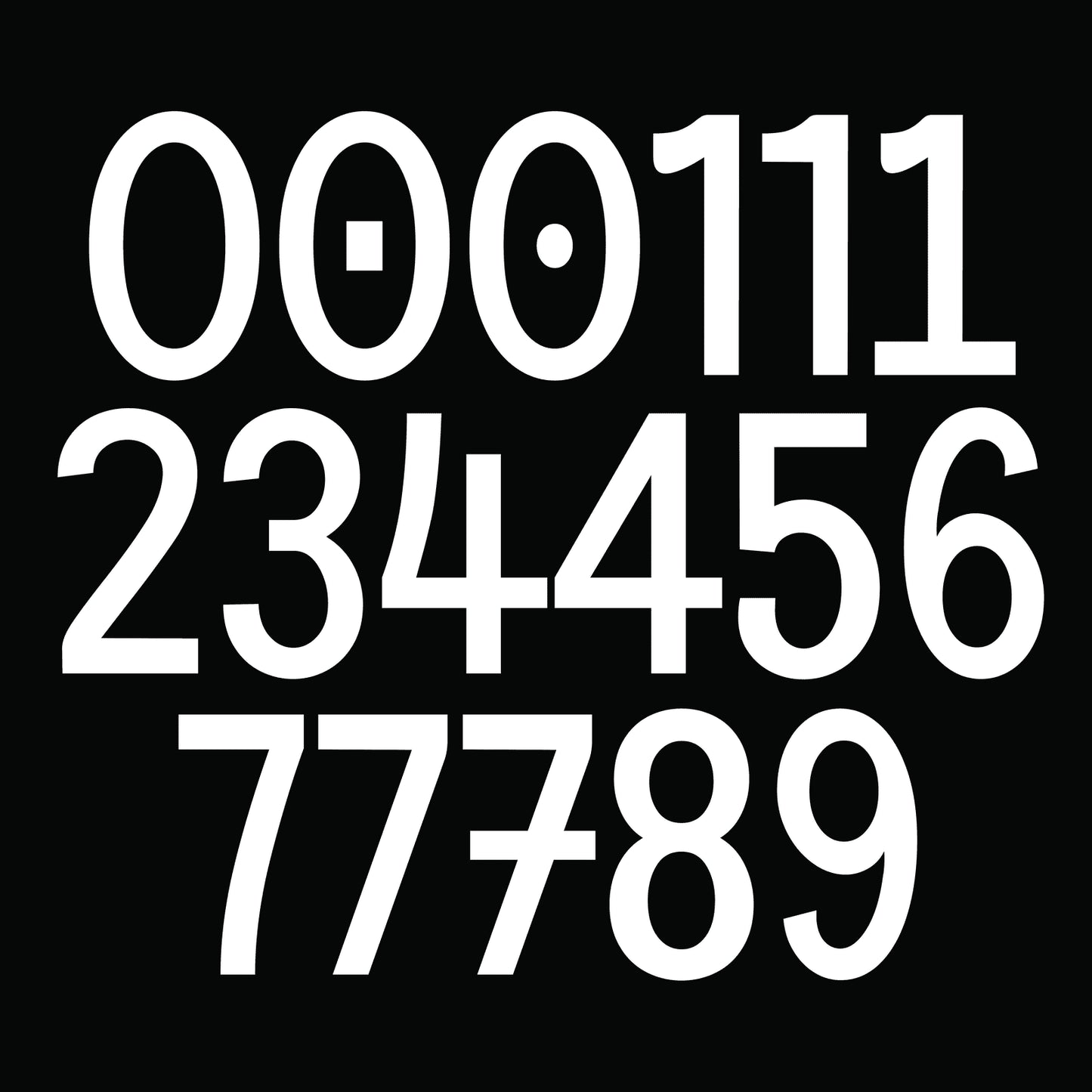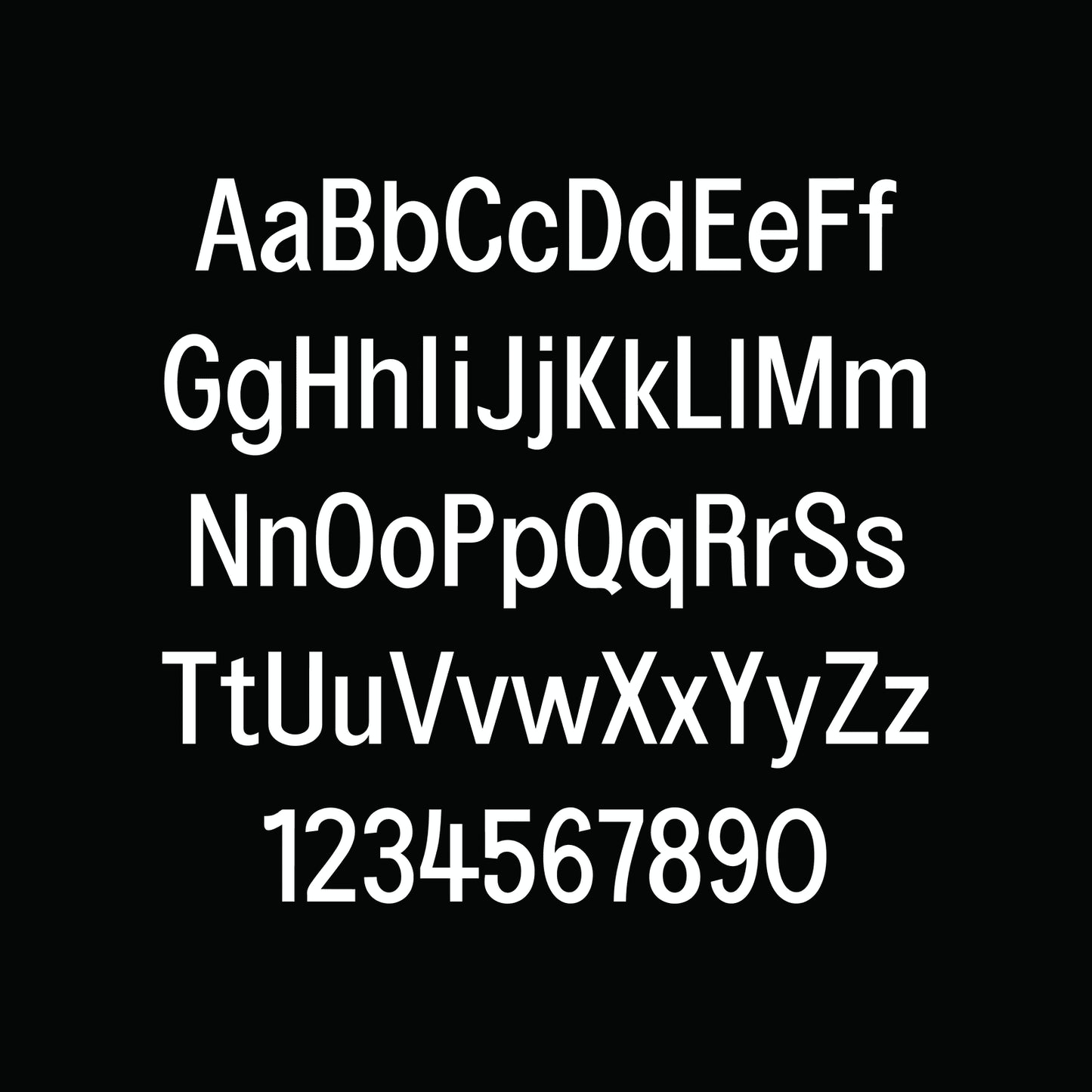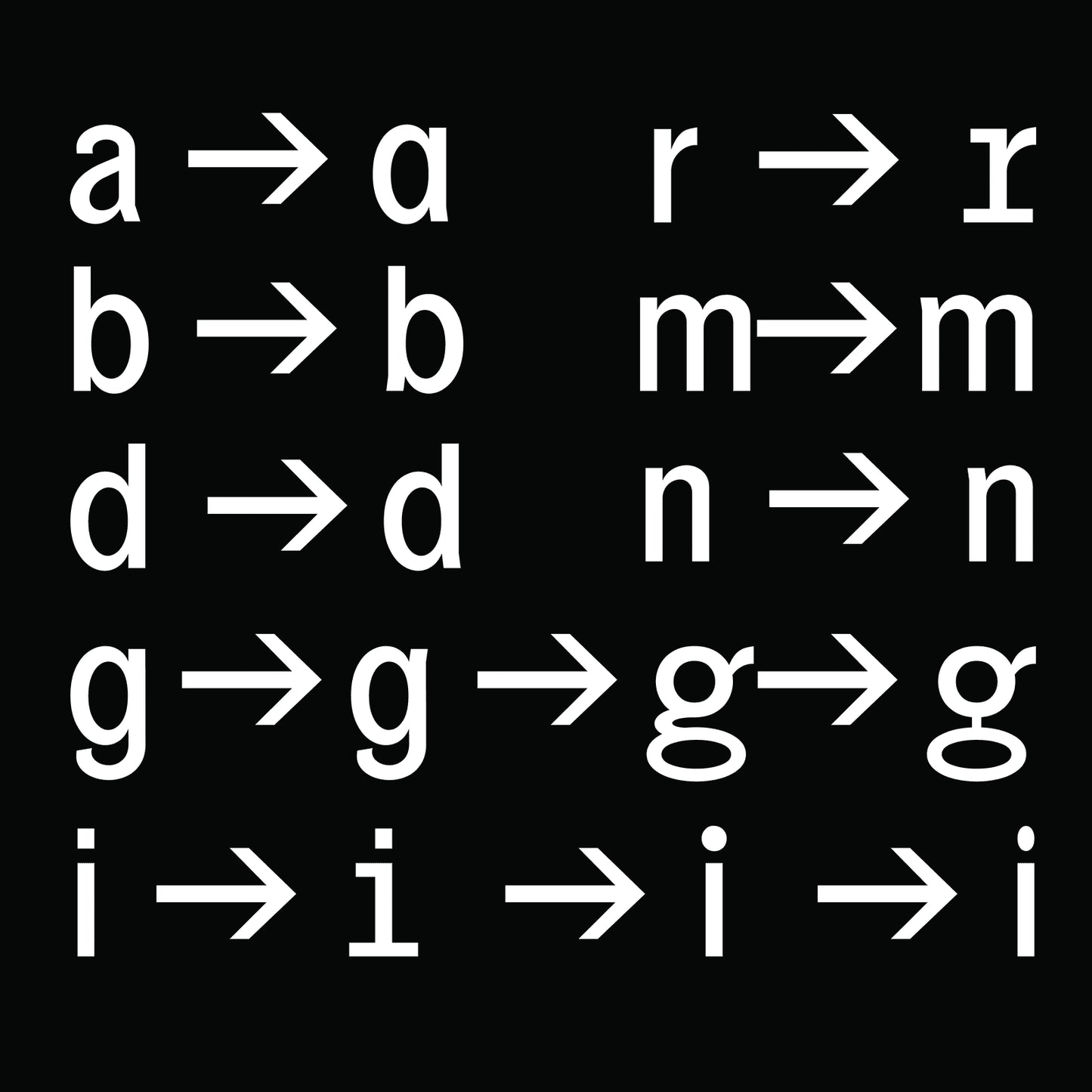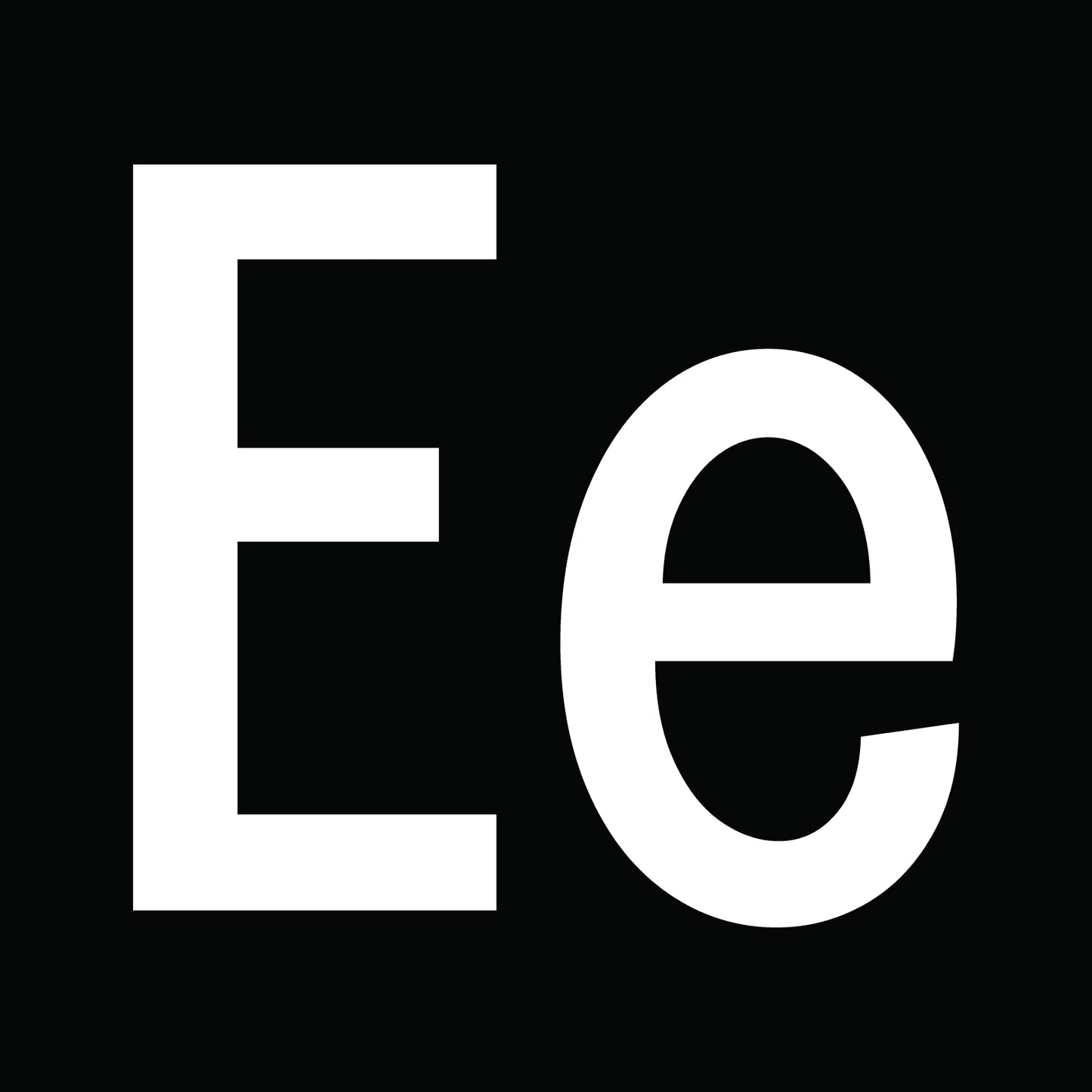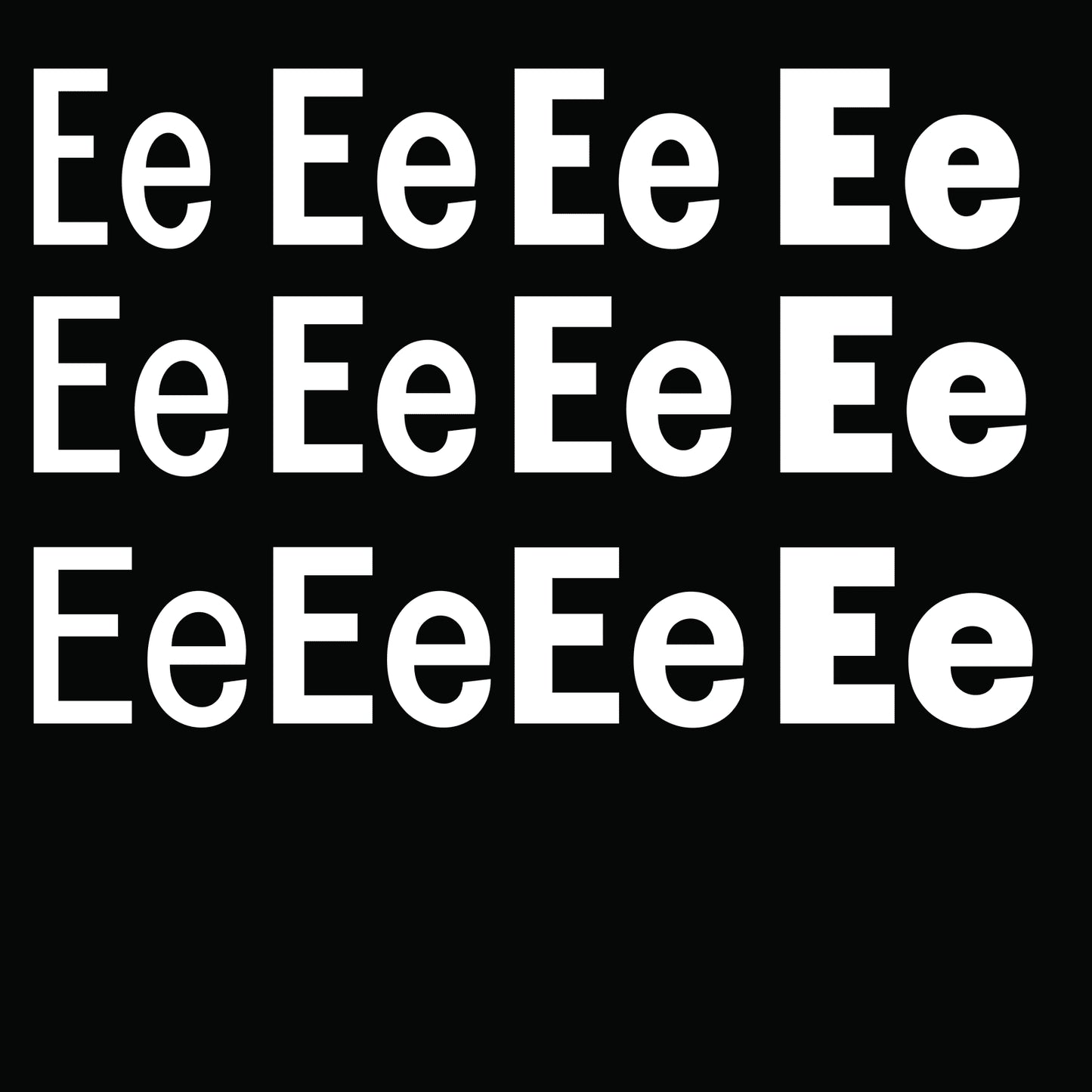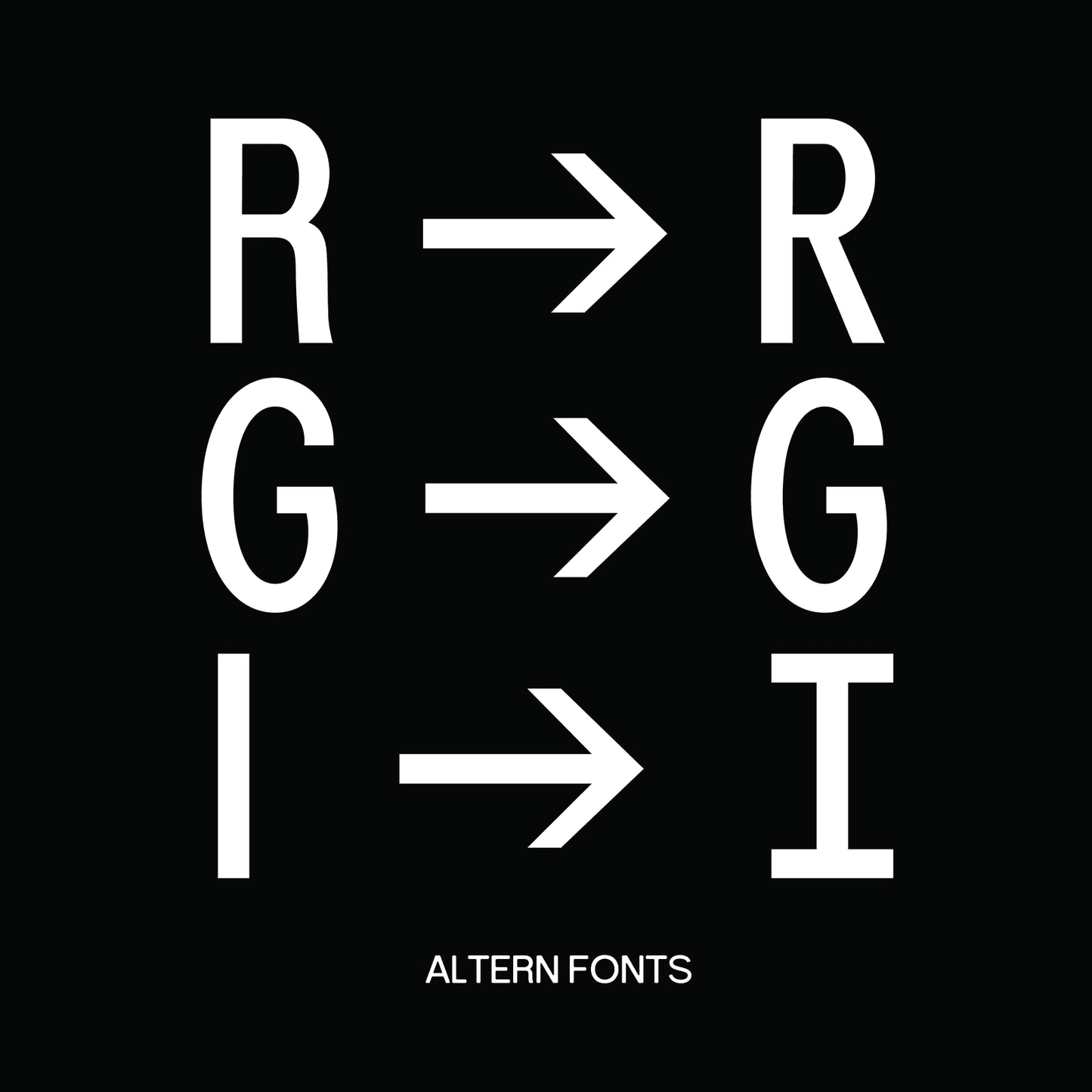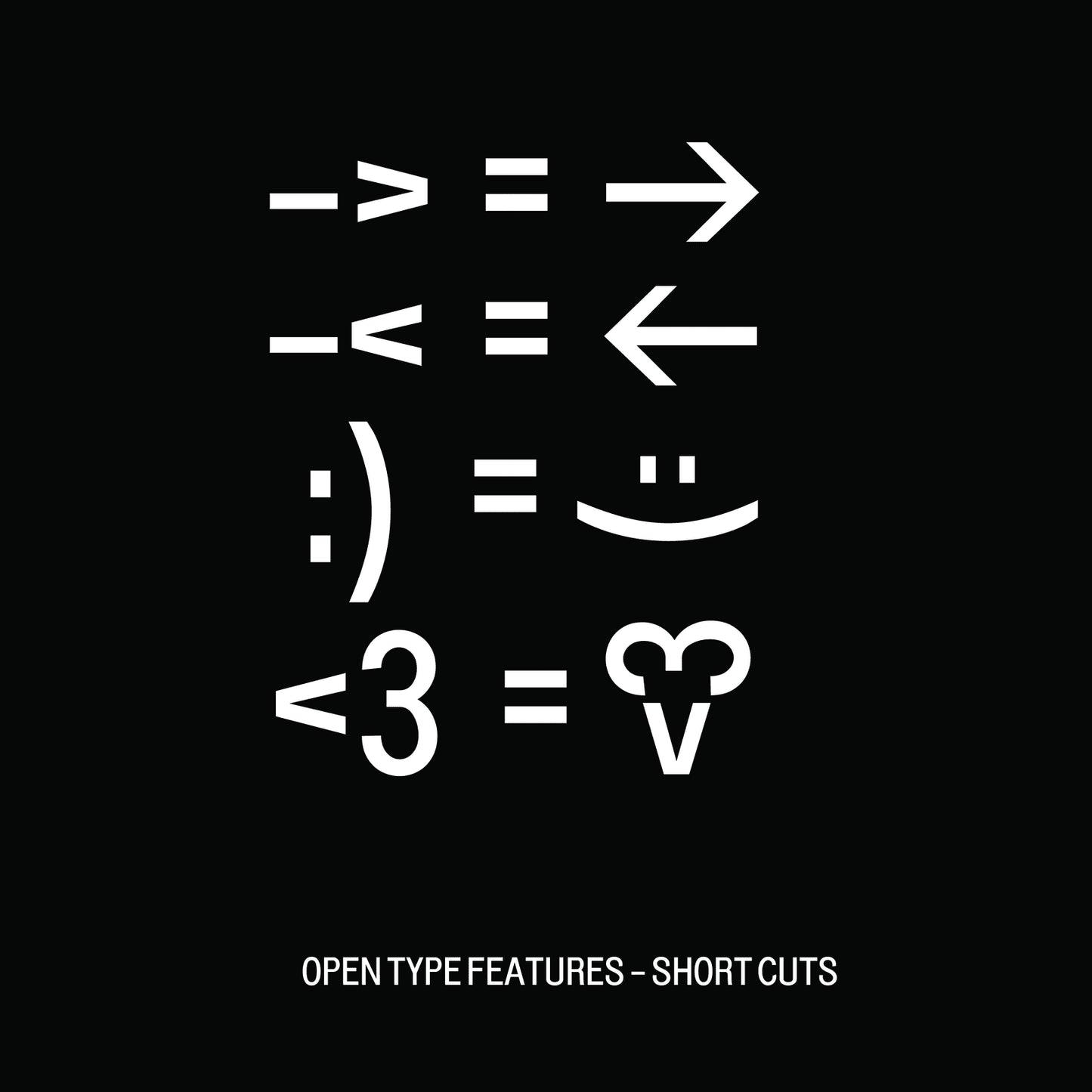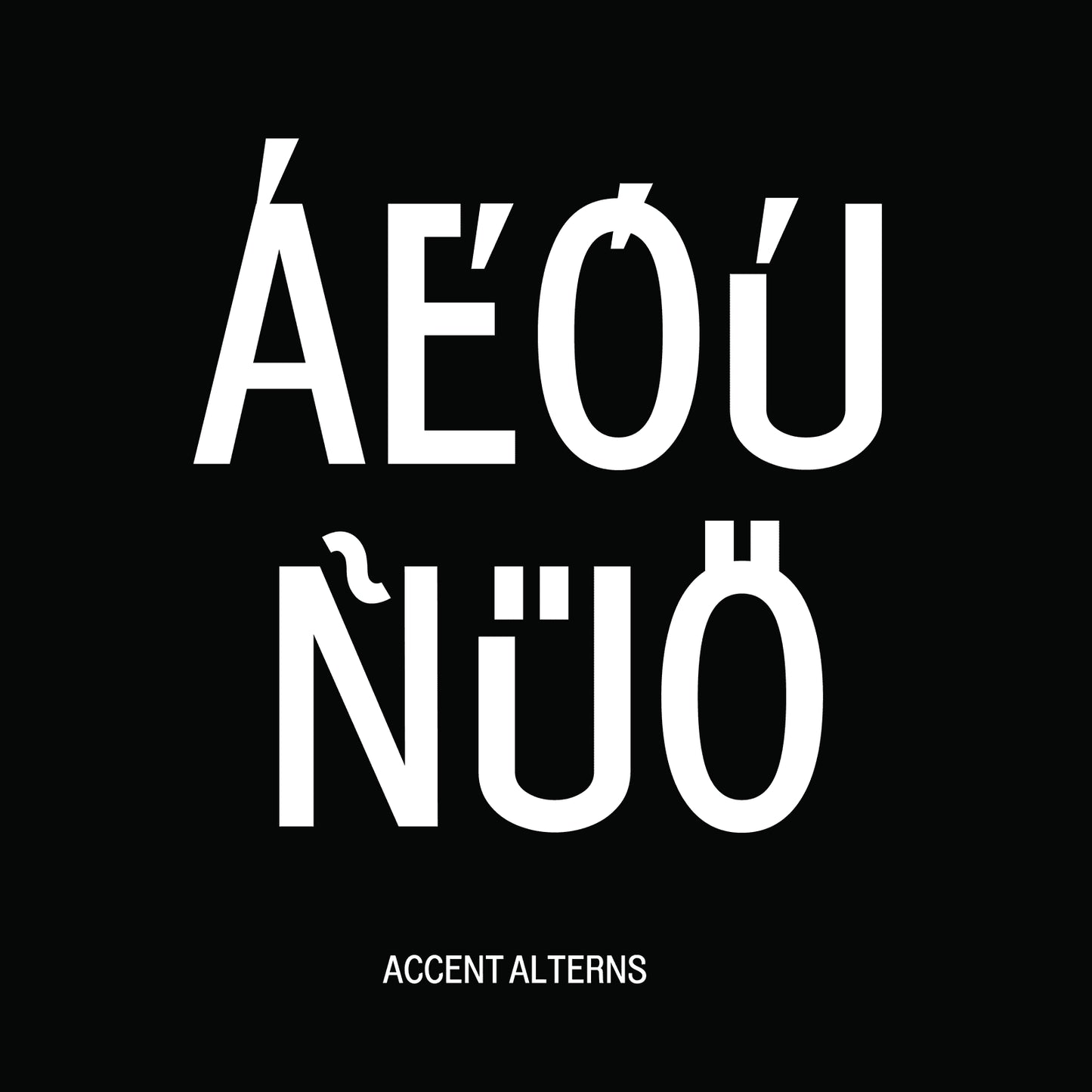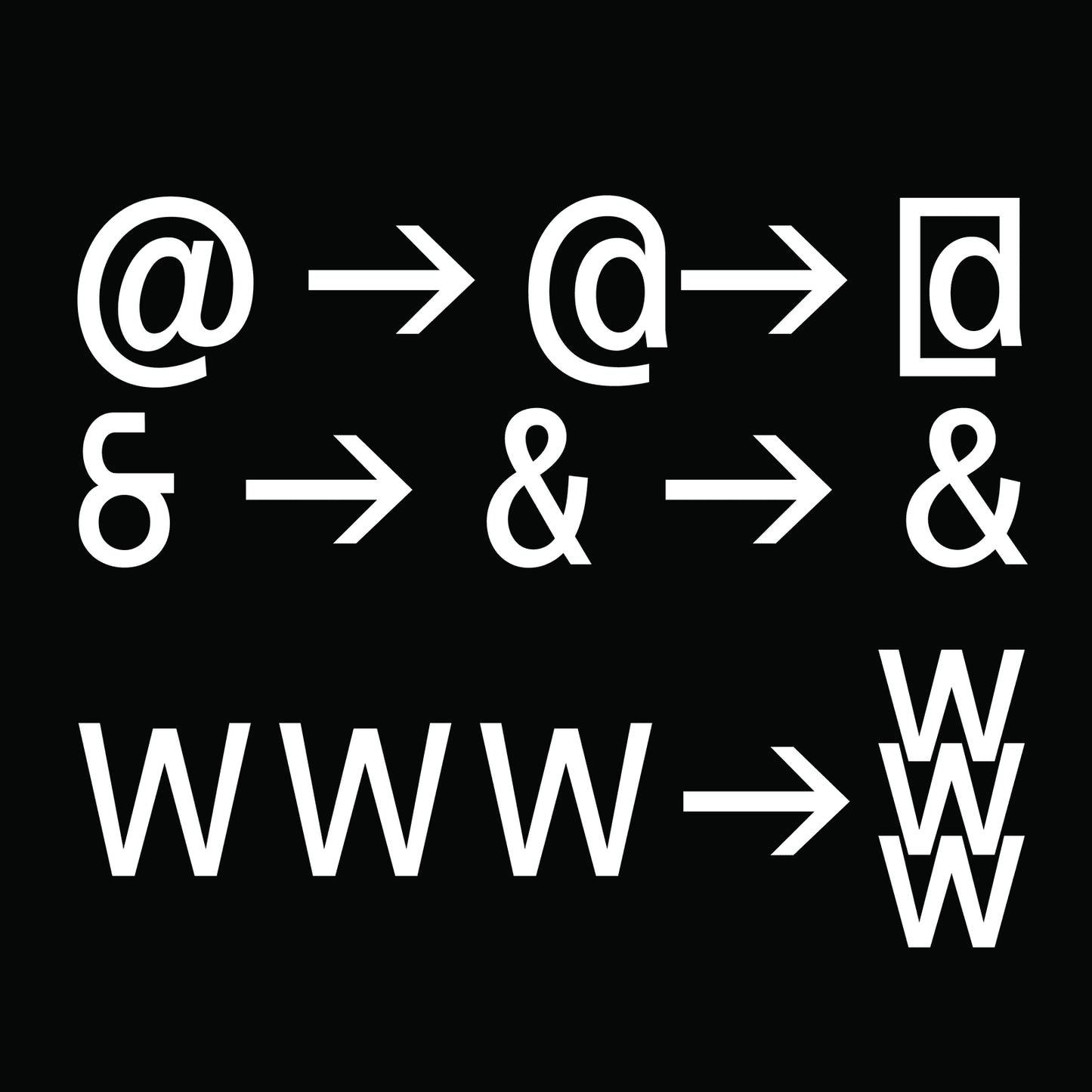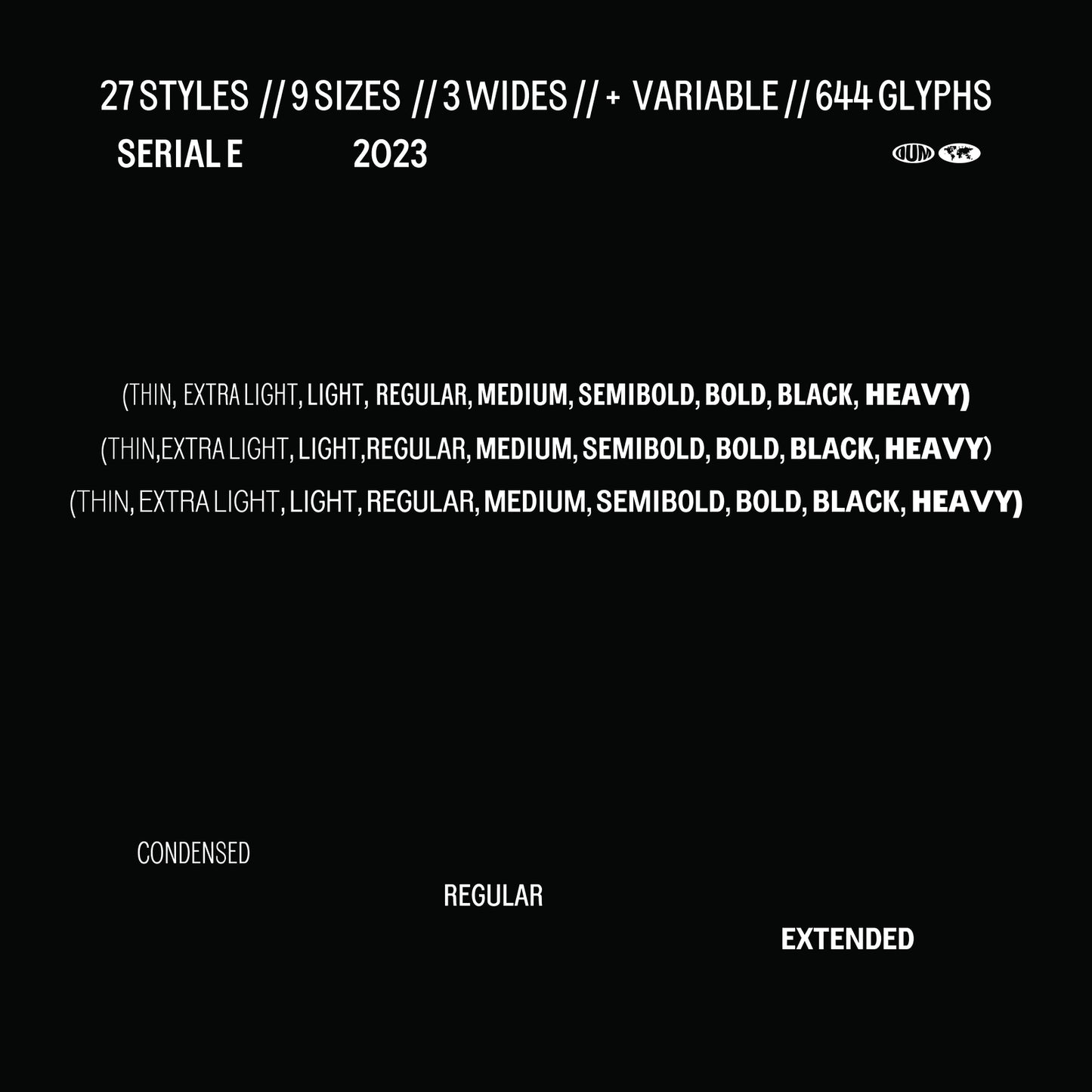
Serial E Condensed
Mario Julian Gutierrez
Serial E is the most extensive typeface in the Serial family, featuring nine different weights and three widths, resulting in 27 variations, including a variable font version.
A bold and unapologetic grotesque, Serial E carries the spirit of Franklin Gothic and Akzidenz Grotesk, but with more mathematical, proportional dimensions rooted in the digital world.
— LIGATURES
— ALTERNATES AND SUBSTITUTES